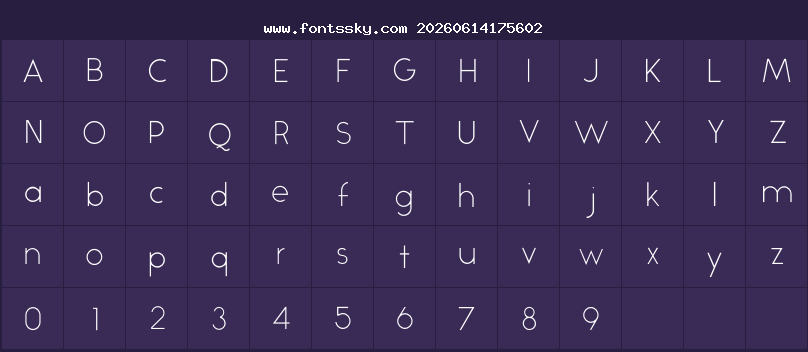
Alcubierre Preview
• Font Name: Alcubierre
• Full Font Name: Alcubierre
• PostScript Name: Alcubierre
• Character Count: 169
• Designer: Matt Ellis
• Manufacturer: Ellis Design
About Alcubierre.otf
Alcubierre.otf is a modern, elegant sans-serif font designed for ultimate readability and visual harmony. Perfect for branding, headlines, web design, and print materials.